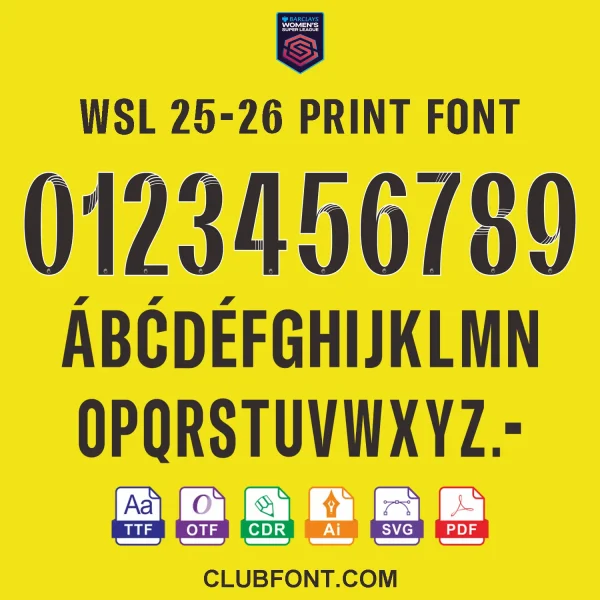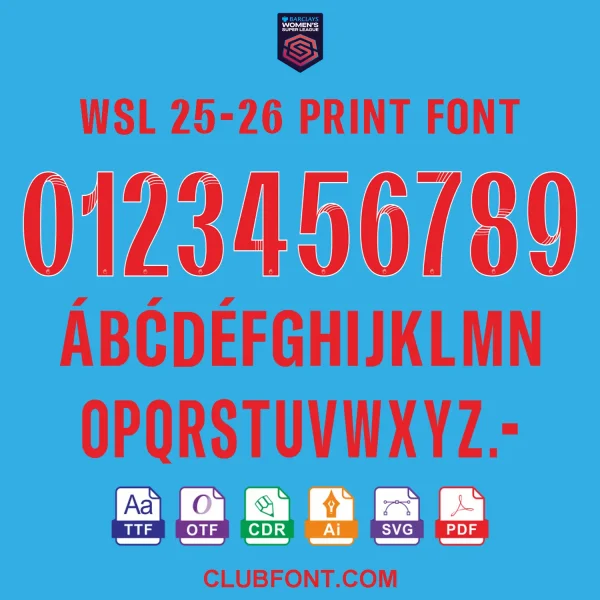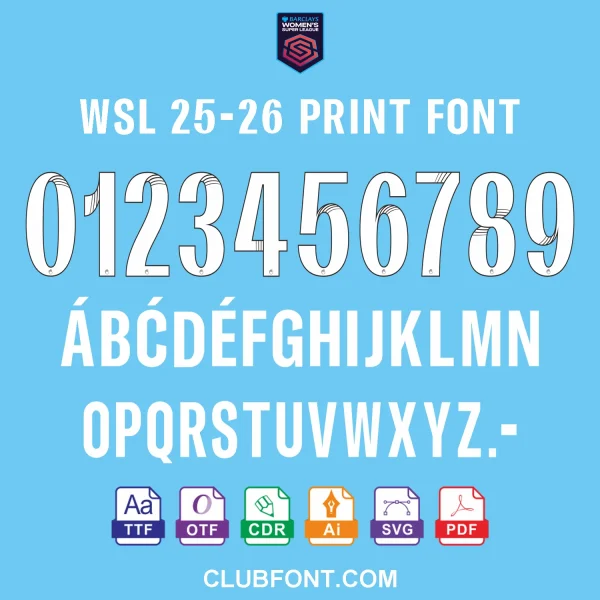
WSL 25-26 Font: The Official Women’s Super League Typography
The WSL 25-26 Font is the definitive match-style typeface mandated for all Barclays Women’s Super League clubs during the 2025-26 season. As the centerpiece of the new WSL Football rebrand, this WSL 25-26 Font delivers the exact visual identity seen on pitches across England. Unlike generic sport fonts, this pack captures the precise stroke width, kerning, and proportions of the official league kit numbers and letters, ensuring your custom jerseys are indistinguishable from the pros.
• Complete Character Map: Includes 0-9 numerals and A-Z uppercase letters matching the official Women’s Super League 25-26 specification.
Perfect for Every WSL Club
The beauty of the WSL 25-26 font lies in its universal application across the league. From Chelsea and Arsenal to Manchester City Women and Manchester United Women, this single font pack covers all 12 WSL teams. The clean, modern geometry of the WSL 25-26 font ensures high visibility on dark and light jersey backgrounds alike.